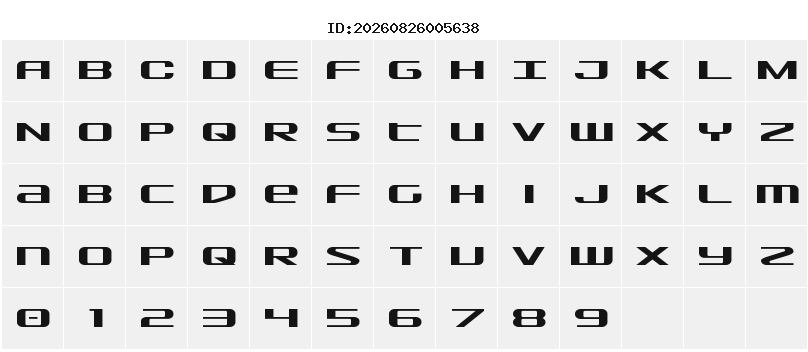
• Font Name: SDF Expanded
• Font Style: Expanded
SDF Expanded.ttf is a modern, elegant sans-serif font designed for ultimate readability and visual harmony. Perfect for branding, headlines, web design, and print materials.